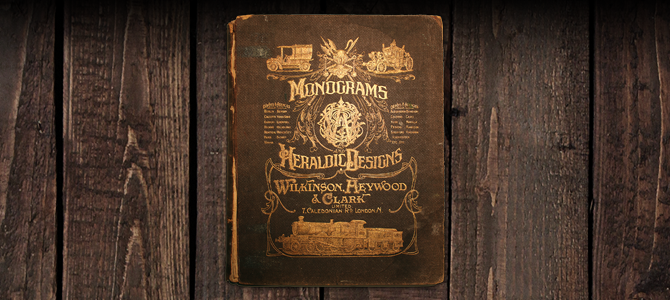
Monograms & Heraldic Designs - Wilkonson, Heywood, & Clarke - 1912
Over 120 pages of chromolithographic plates with everything from two or three letter monograms to alphabets, color palettes, scrolls, banners, heraldry, coats of arms, and more. This is easily one of my current favorites in the Lettering Library catalog as far as monograms go.